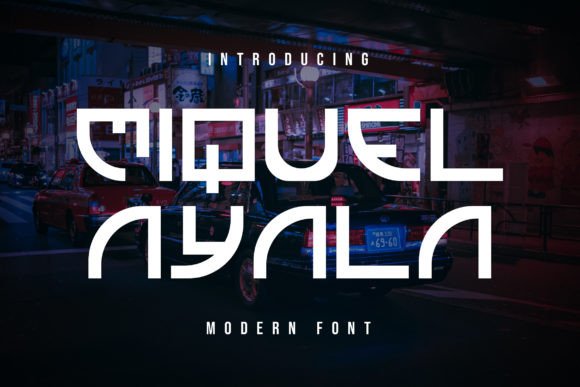
**Introducing Miquel Ayala: The Quintessential Font for Expressing Gratitude with Elegance**
In the realm of communication, the power of written words transcends mere expression; they hold the ability to convey emotions, build connections, and leave lasting impressions. Whether crafting heartfelt letters, crafting meaningful designs, or conveying messages with impact, the choice of font plays a pivotal role in shaping the perception of your message.
Allow us to introduce Miquel Ayala, a meticulously crafted sans serif font family that embodies the essence of gratitude and heartfelt expression. Inspired by the desire to elevate your communication, Miquel Ayala is thoughtfully designed to lend a touch of sophistication and warmth to your words.
With its clean lines, sharp angles, and subtle curves, Miquel Ayala exudes a timeless elegance that complements any design aesthetic. Whether you're creating a heartfelt thank-you note, designing a captivating poster, or crafting a visually stunning website, Miquel Ayala seamlessly adapts to your needs, enhancing the impact of your message.
But what truly sets Miquel Ayala apart is its versatility. Perfectly suited for both digital and print applications, this versatile typeface effortlessly translates your ideas across a multitude of platforms. From crafting eye-catching headlines to composing engaging body text, Miquel Ayala's adaptability ensures your message shines through.
For those seeking to express gratitude with a touch of modern flair, Miquel Ayala is the perfect choice. Its unique character set, including uppercase, lowercase, numerals, and symbols, empowers you to create visually captivating designs that convey your heartfelt sentiments in a memorable way.
Immerse yourself in the world of Miquel Ayala and unlock the power of expressing gratitude with elegance and impact. Let this exceptional font family elevate your communication, leaving a lasting impression that resonates with your audience.